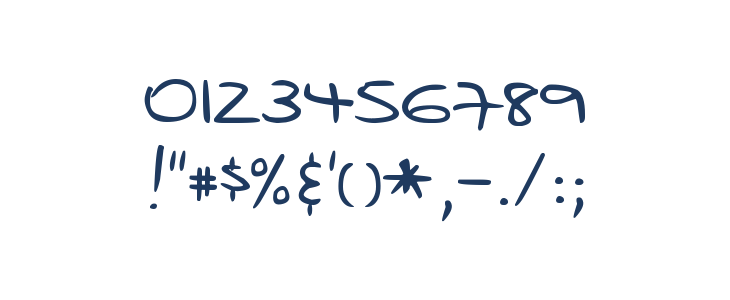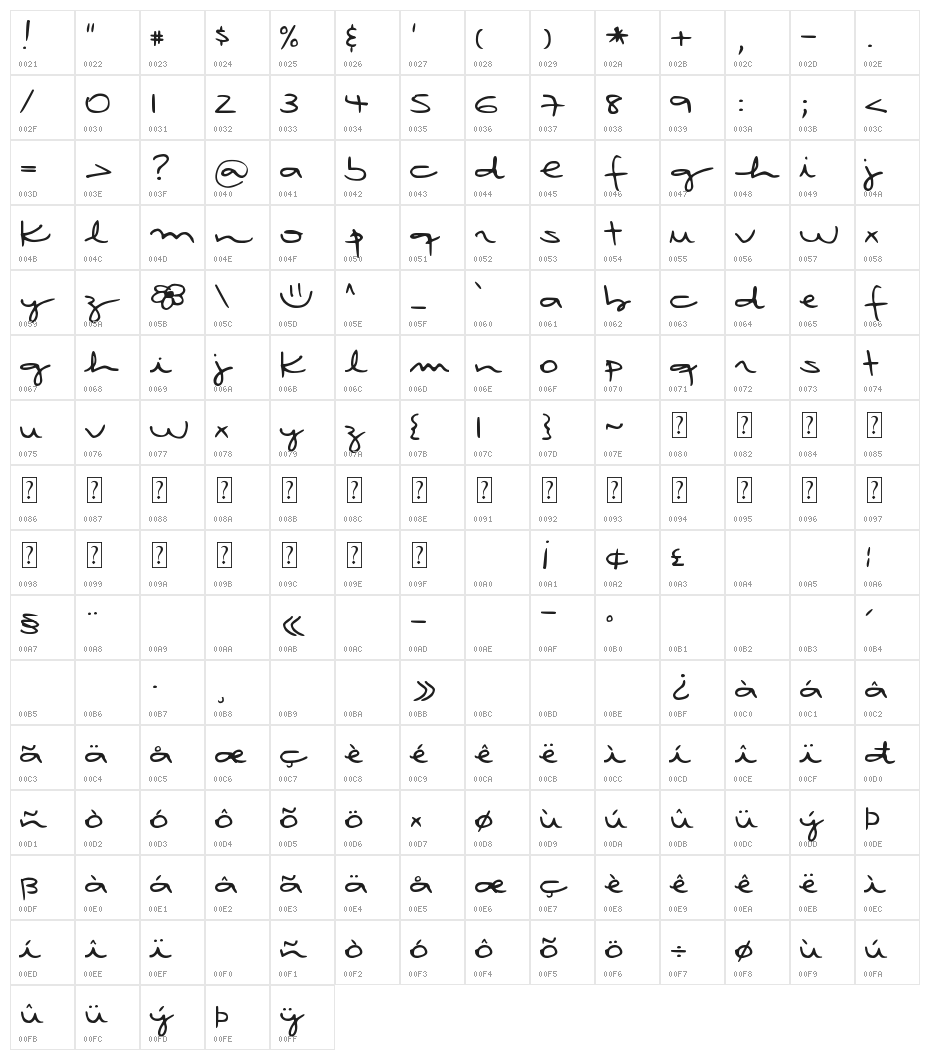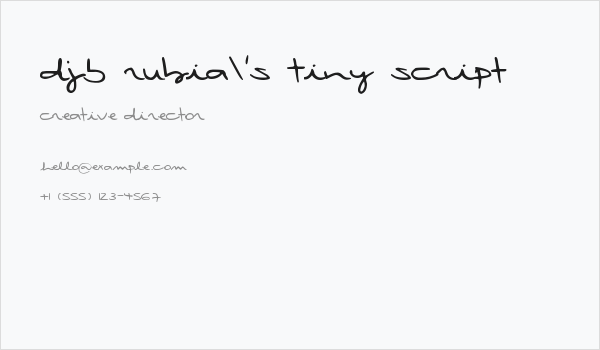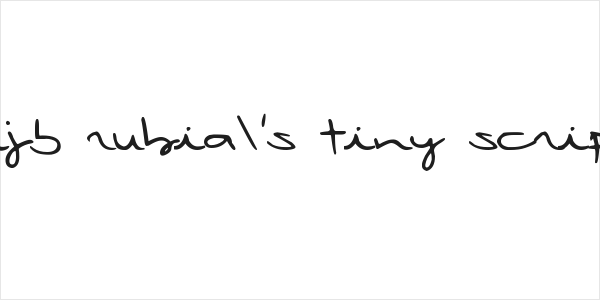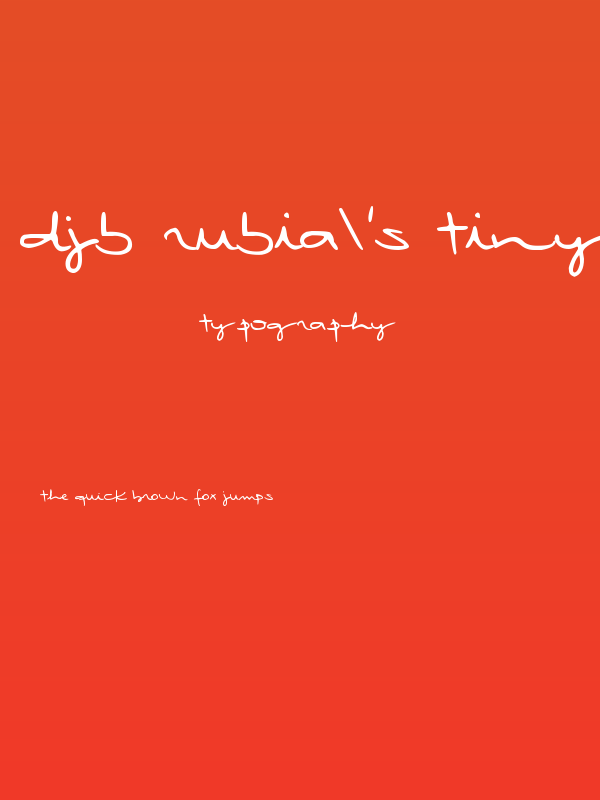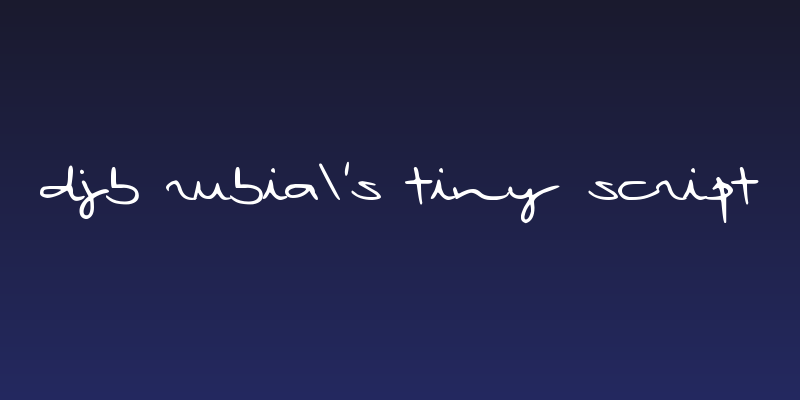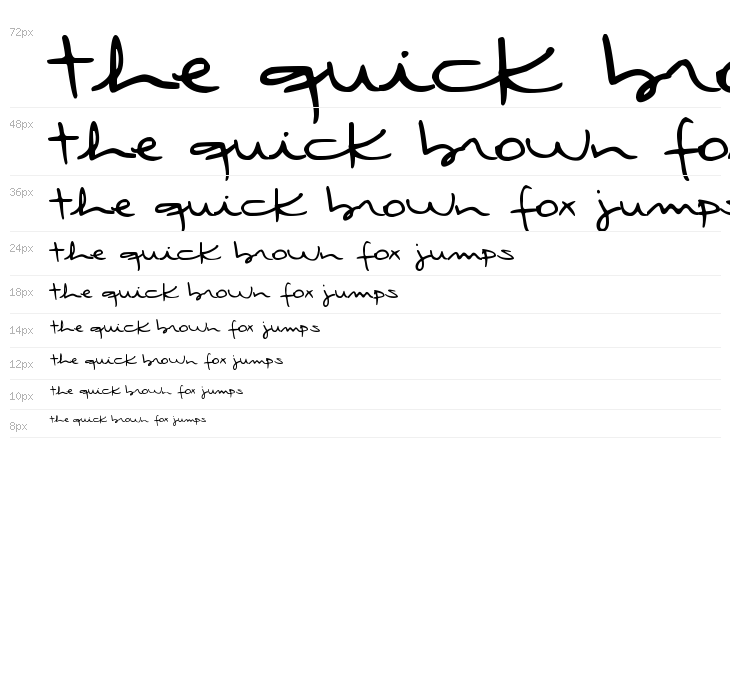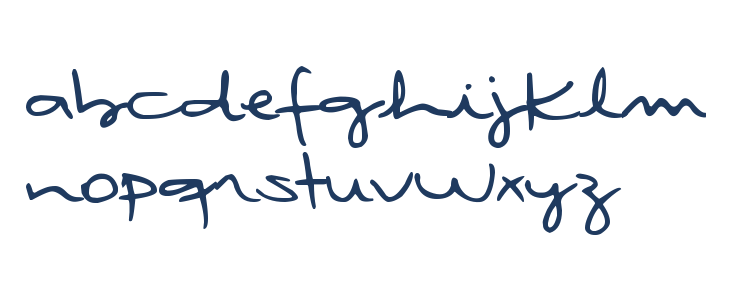
DJB Rubia's Tiny Script Font
DJB Rubia's Tiny Script Description
This font features a playful and casual handwritten style, characterized by its fluid and connected strokes. The letters are slightly slanted, giving it a dynamic and informal appearance. The uppercase and lowercase letters maintain a consistent flow, with rounded edges and a smooth, cursive-like quality. The numbers and special characters are designed to match the overall aesthetic, ensuring a cohesive look across all glyphs. This font exudes a friendly and approachable vibe, making it suitable for projects that require a personal touch.
| Use Case | Headlines, Informal text, Personal projects |
| Proposed Projects | Ideal for greeting cards, personal notes, invitations, and informal branding projects. |